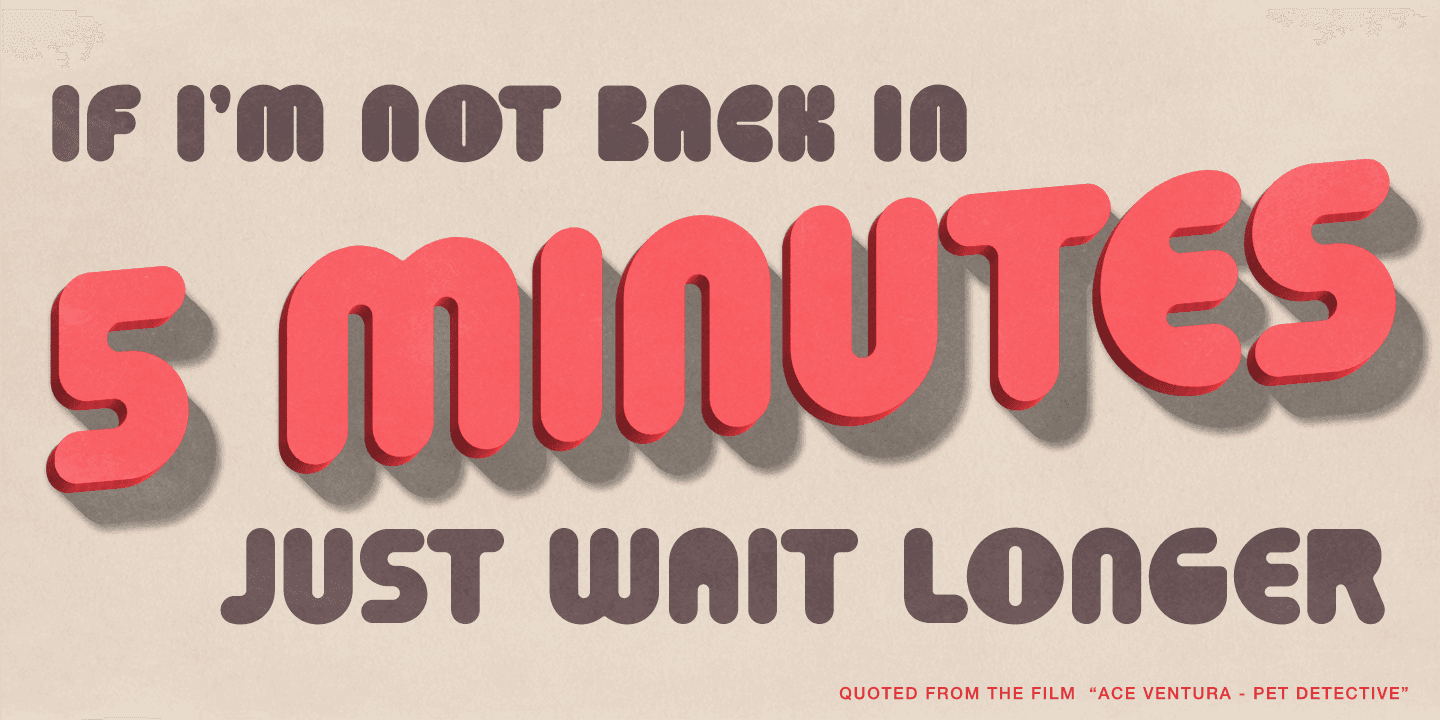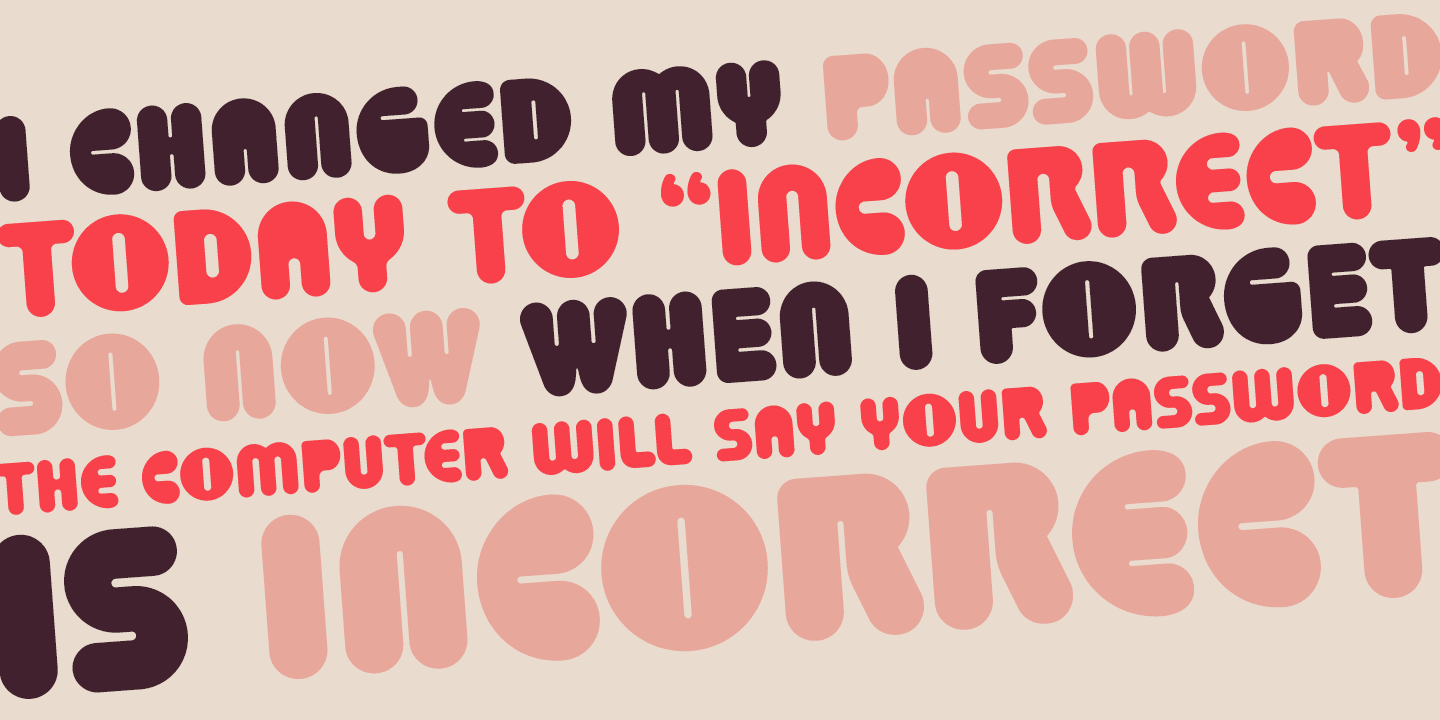
About Puffer PB
A charmingly bloated graphic typestyle, Puffer PB started as a digitization of a film typeface family called Burton by LetterGraphics, originally created by Brian Burton. It came with Light, Bold, Outline, and Shadow variants, which are all meticulously…